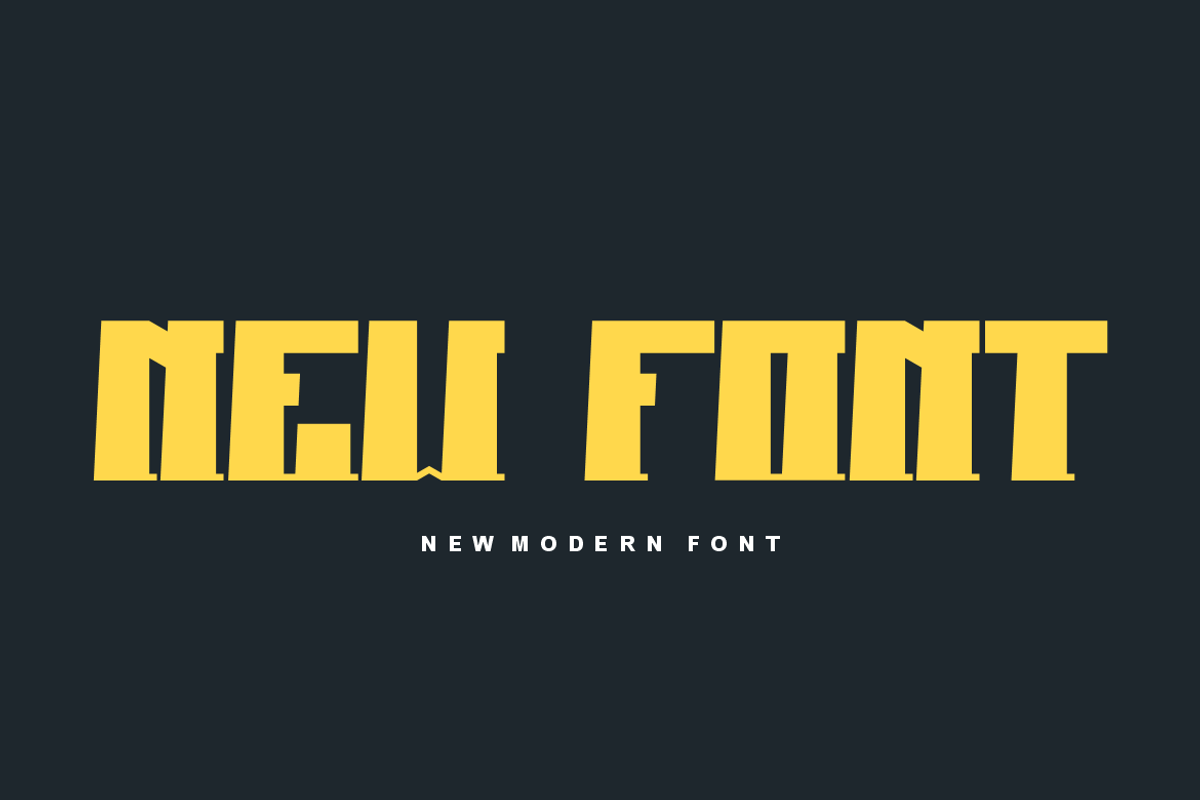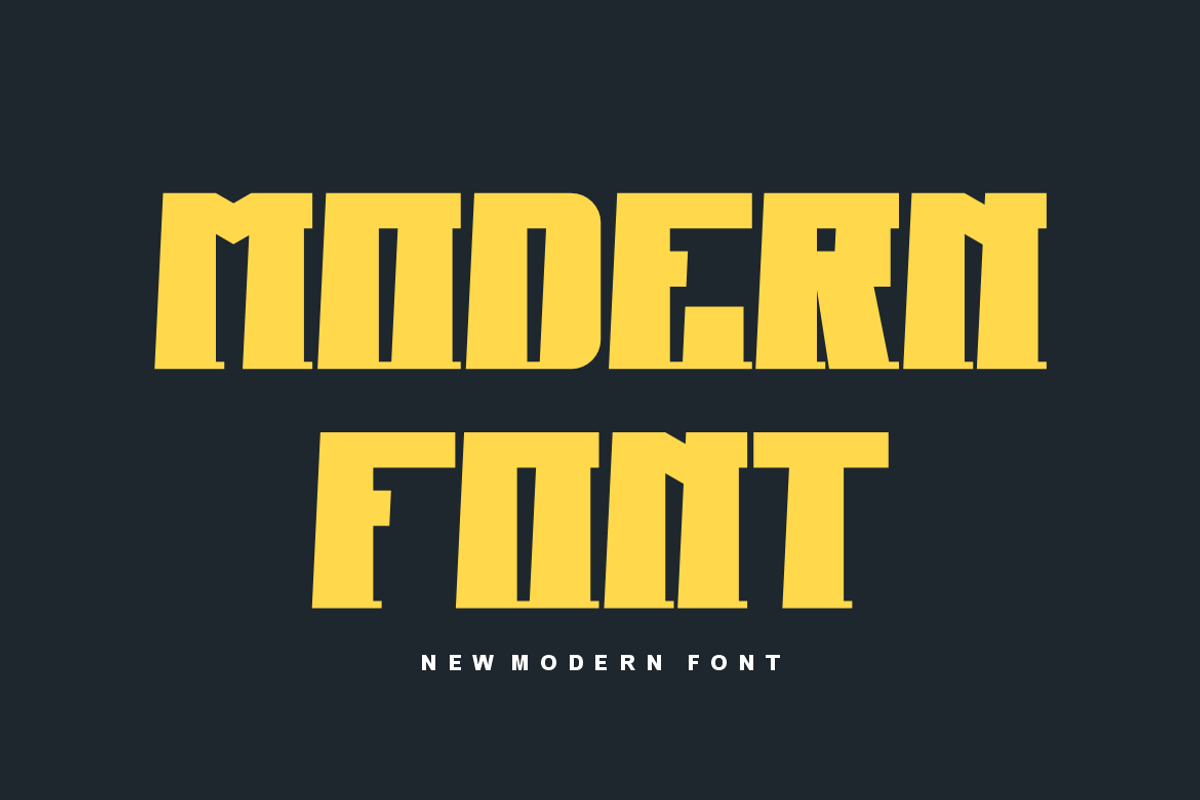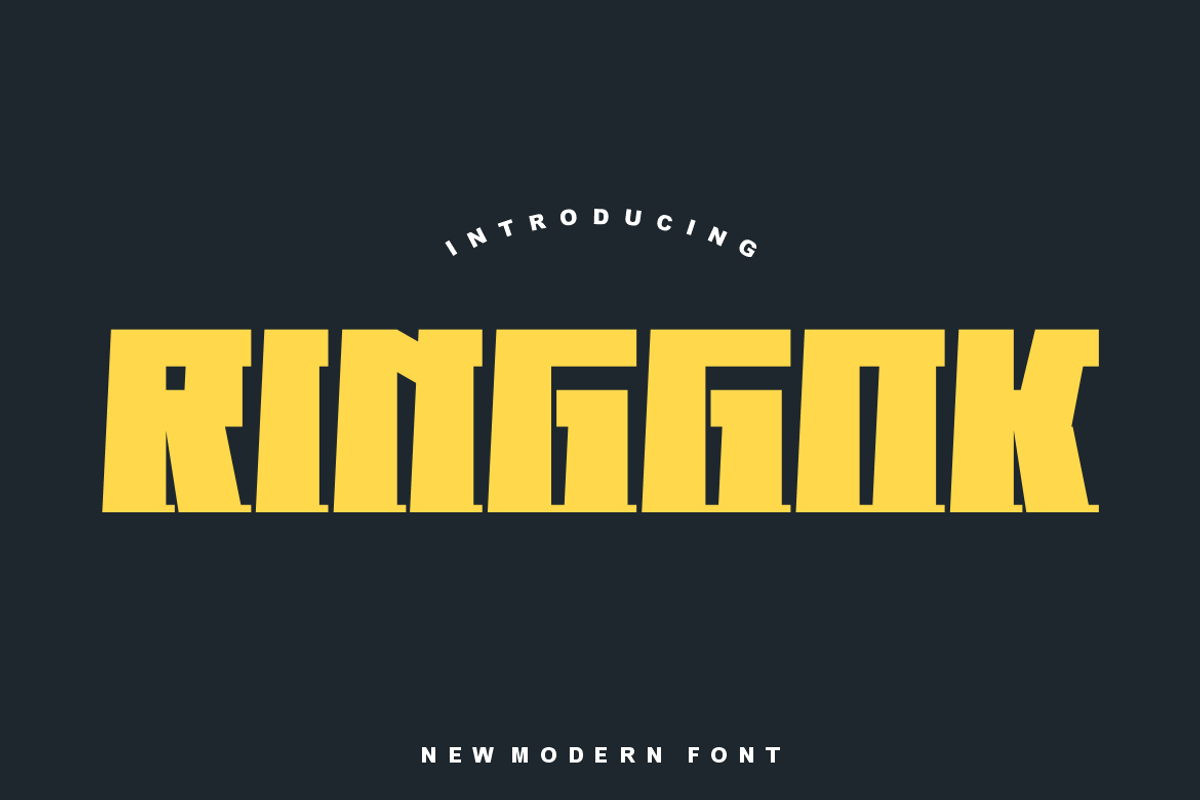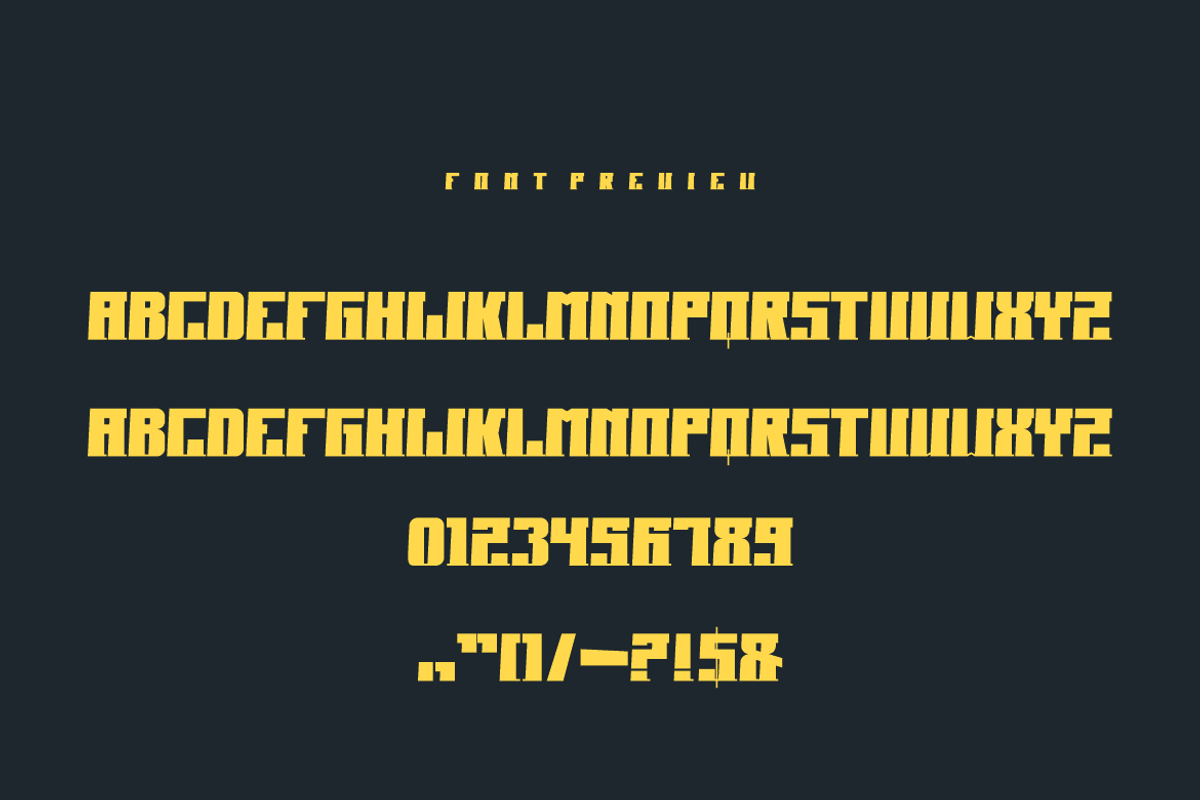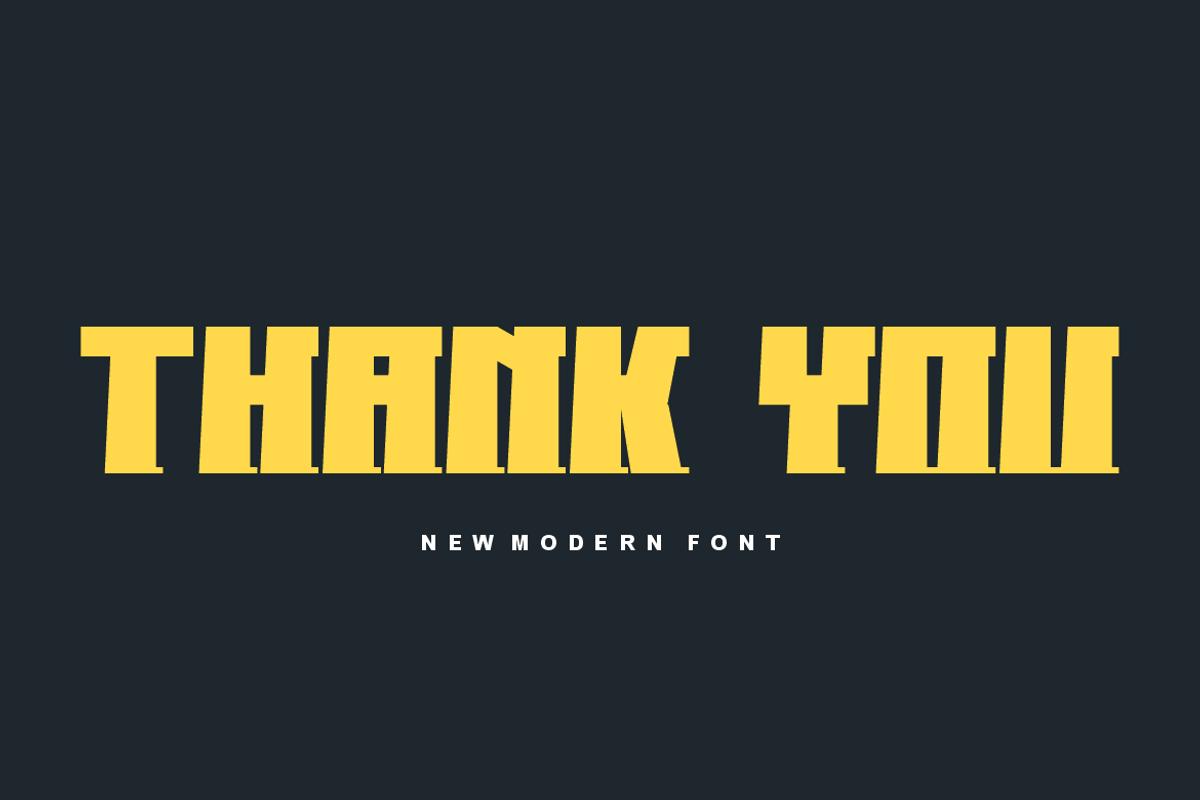
Ringgok - Font
- Modern Font is a bold and authentic display font. The font is suitable for any branding project like logo, t-shirt printing,, and many more. outstanding in a wide range of contexts.